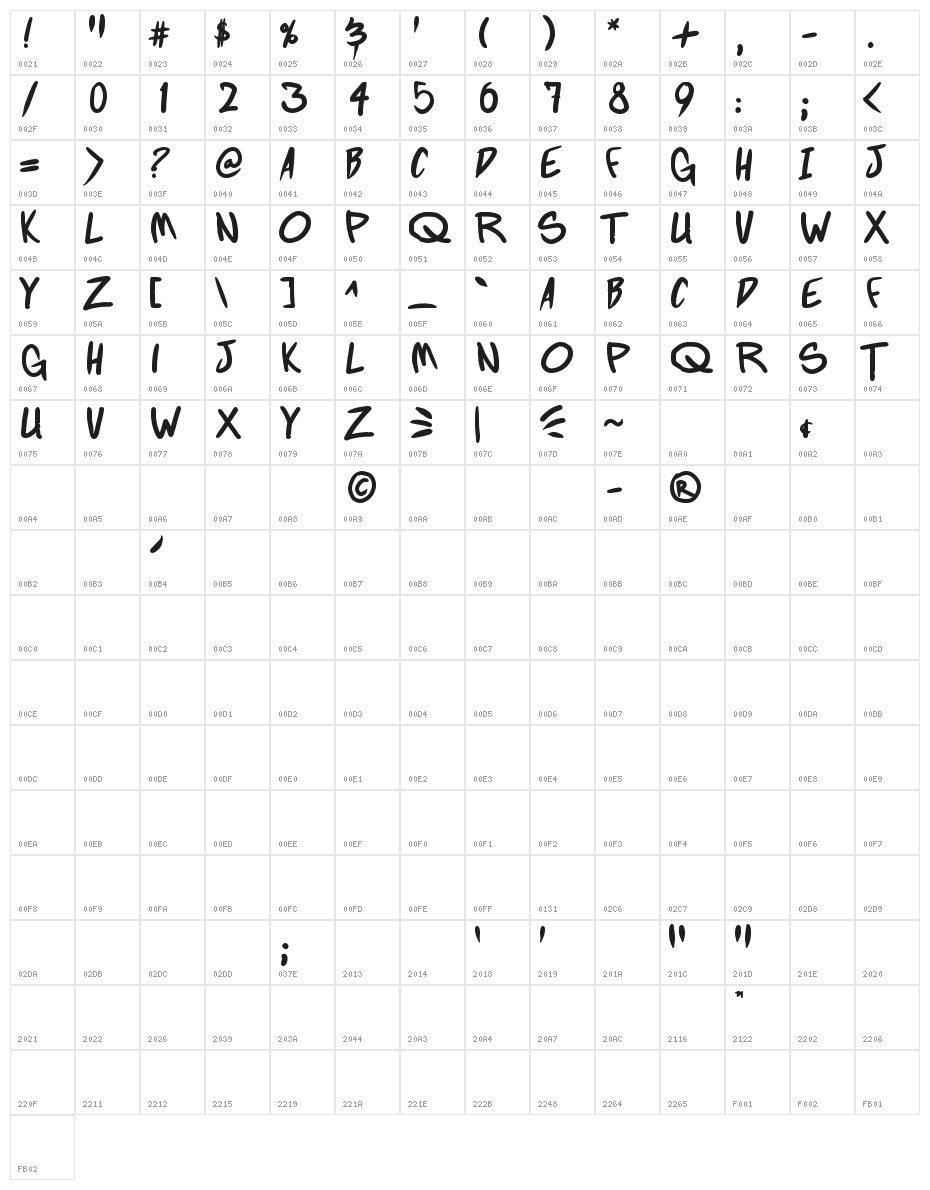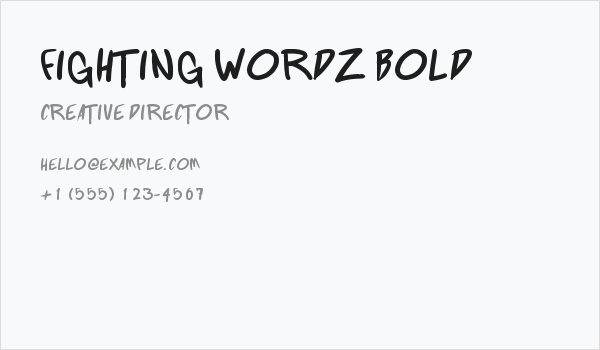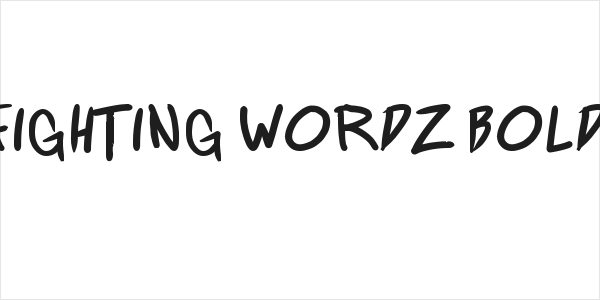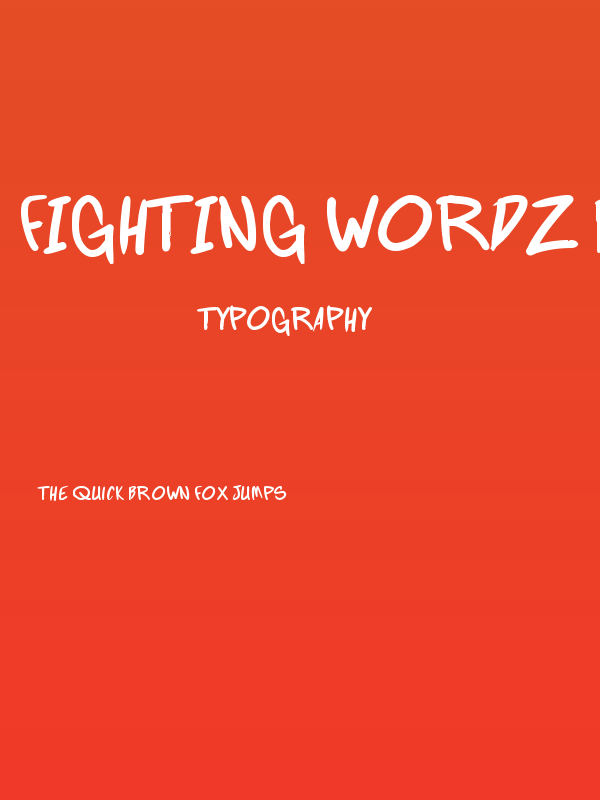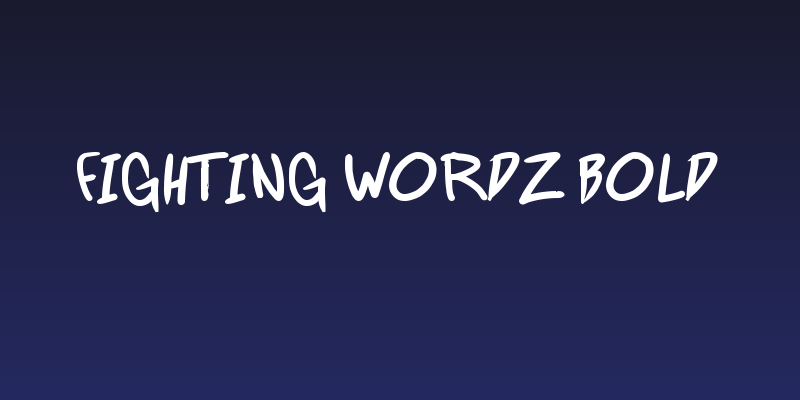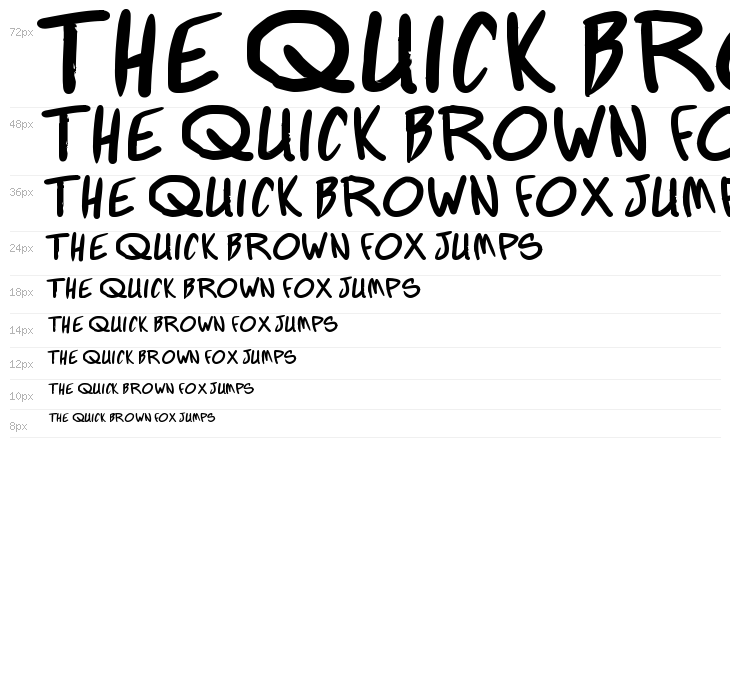
Fighting wordz Bold Font
Fighting wordz Bold Description
This font exudes a bold and energetic style, characterized by its thick, brush-like strokes that give it a dynamic and expressive appearance. The letters are slightly slanted, adding a sense of movement and urgency. The uppercase and lowercase letters maintain a consistent style, with rounded edges and a playful, informal look. The numbers and special characters follow the same design principles, ensuring a cohesive appearance across all elements. This font is ideal for projects that require a strong, impactful visual presence.
| Proposed Projects | Perfect for posters, headlines, branding, and any project needing a bold, energetic touch. |